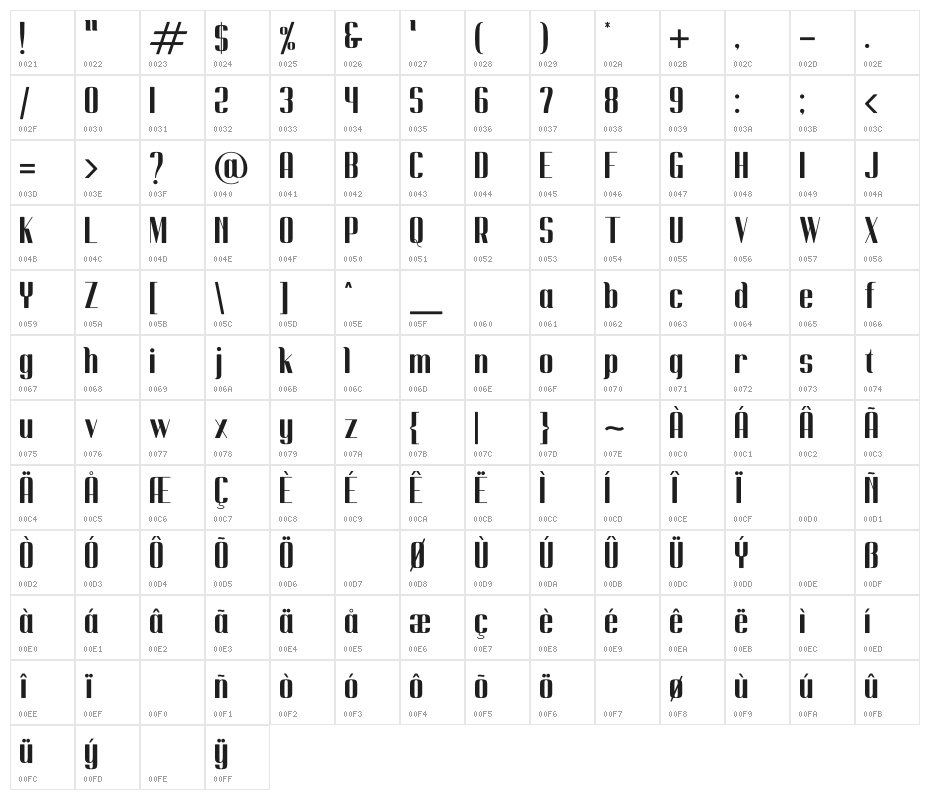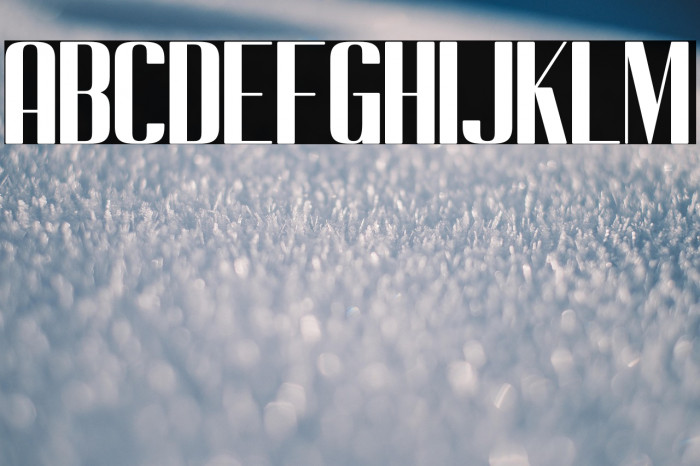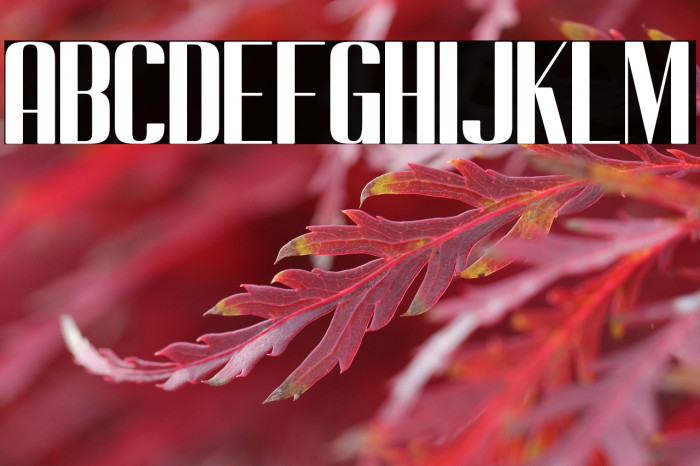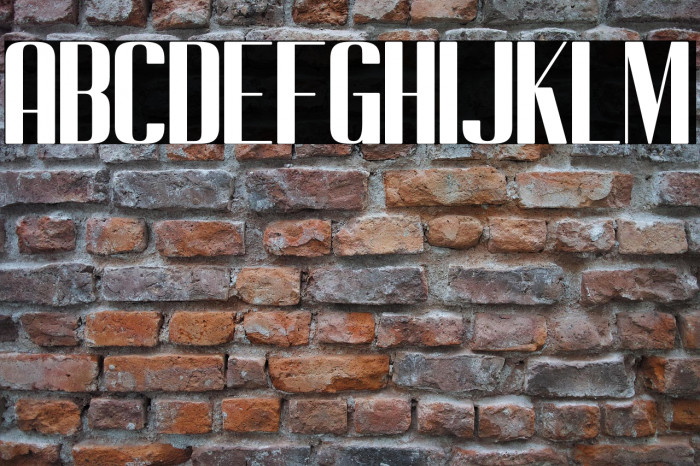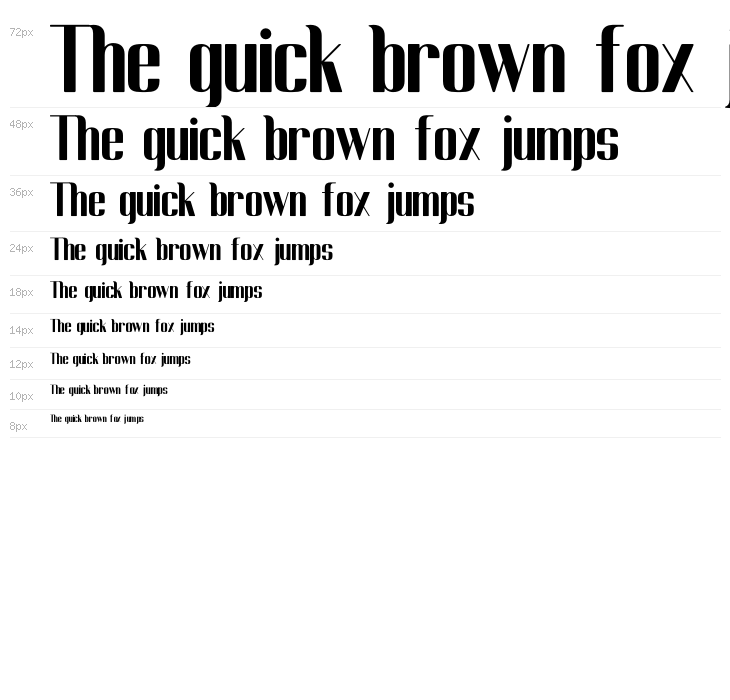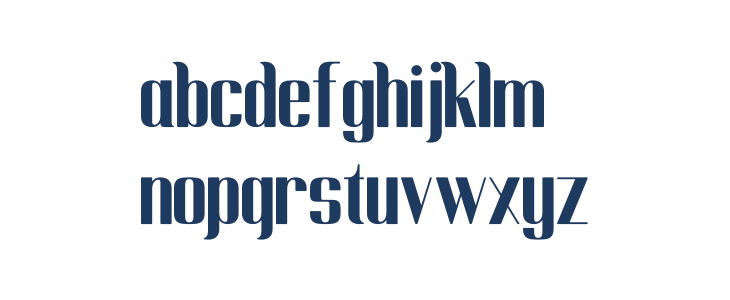
Cempe west Font
Cempe west Description
This font features a bold and striking design with high contrast between thick and thin strokes, giving it a dramatic and eye-catching appearance. The uppercase letters are tall and narrow, while the lowercase letters maintain a consistent style with slightly more rounded forms. The numerals are distinct and align well with the overall aesthetic, providing a cohesive look. Special characters are designed with the same boldness, ensuring they stand out. This font's unique style makes it suitable for impactful designs where attention is key.